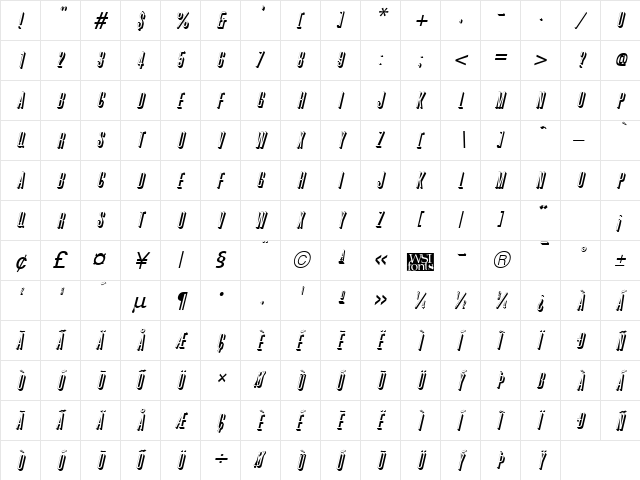
GreatShadow Italic Font Preview
GreatShadow Italic
Design Context for GreatShadow Typeface
GreatShadow brings ornamental detail and strong personality to headlines and identities, where visual impact matters more than quiet functionality. Its italic angle brings a sense of urgency and motion to the letterforms.
Font Pairing: Pair with a clean neutral sans-serif for body copy to let GreatShadow's character lead without overwhelming the composition.
Pro Tip: Treat GreatShadow as the centrepiece of your typographic hierarchy. One strong heading set in a decorative face can carry an entire layout.